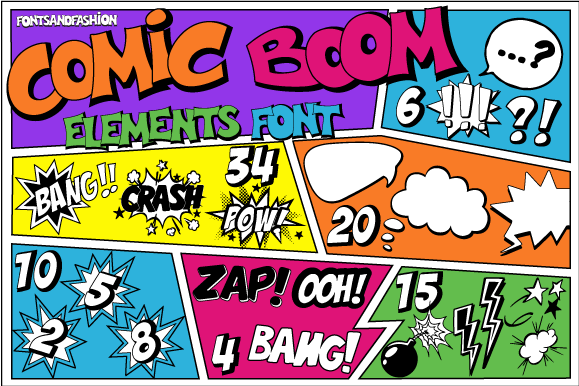
Enter the Comic Boom Element Font, a game-changing collection of 89 comic and funny superheroes subjects inspired by the world of comic books and pop art. This versatile font is more than just a design tool – it’s a key to unlocking a universe of creative possibilities. With the Comic Boom Element Font, you’ll be able to create amazing designs that bring your DIY projects to life and capture the attention of your audience.
Comic Boom Element Font Features
- Font Family: Comic Boom Element Font is a unique, hand-drawn font designed to evoke a comic book or cartoon feel. It features a bold, playful style with intricate details and textures.
- Character Set: The font includes a comprehensive set of characters, including uppercase and lowercase letters, numbers, punctuation marks, and special characters.
- Unique Characteristics: Comic Boom Element Font features a distinctive, hand-drawn style with irregular shapes and lines, giving it a unique and eye-catching appearance.
Comic Boom Element Font Review
Overall, I found the Comic Boom Element Font to be a fun and quirky addition to any design project. ✨ It’s perfect for creating a playful and energetic atmosphere in children’s books, advertisements, or even video games.
The font has a lot of character and is highly customizable, making it easy to adjust the weight, width, and other aspects to suit your needs. ✨ The bold lines and rounded edges give it a distinctive look that’s sure to grab attention.
Here are some of the key features I liked:
- Fun and quirky design
- Perfect for creating a playful atmosphere
- Works well in digital and print media
- May not be suitable for formal or professional projects
- Can be overwhelming in large quantities
- Lack of subtlety in design may not appeal to everyone
⚠️ Despite these limitations, I still think the Comic Boom Element Font is a great addition to any designer’s toolkit. It’s perfect for projects where you want to add a bit of whimsy and personality.
The Comic Boom Element Font is ideal for creating playful and energetic designs. Use it for:
1. Comic book-inspired artwork.
2. Children’s book illustrations.
3. Social media graphics and advertisements.
Remember to experiment with different font sizes, styles, and colors to get the most out of this font.